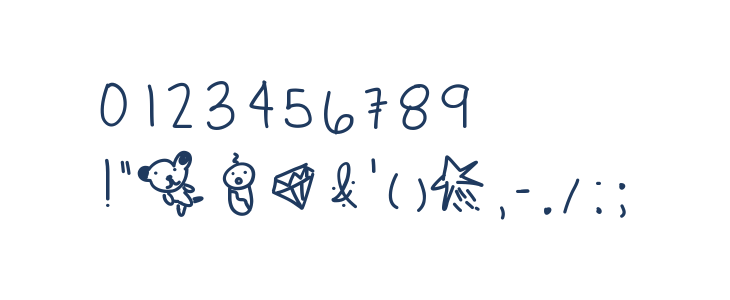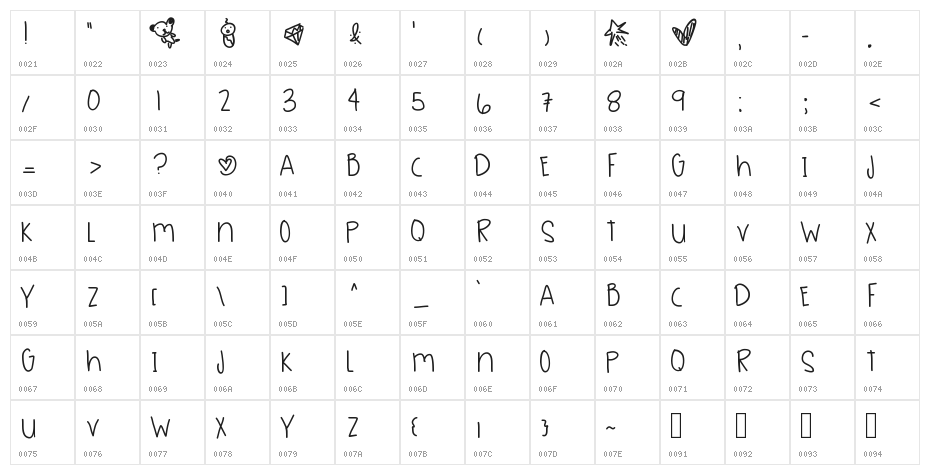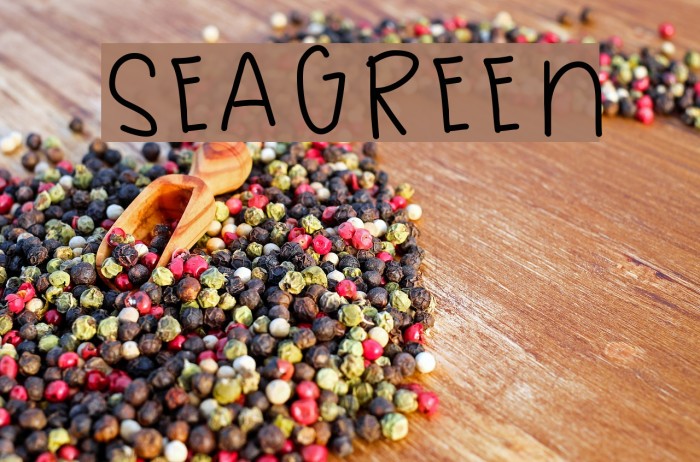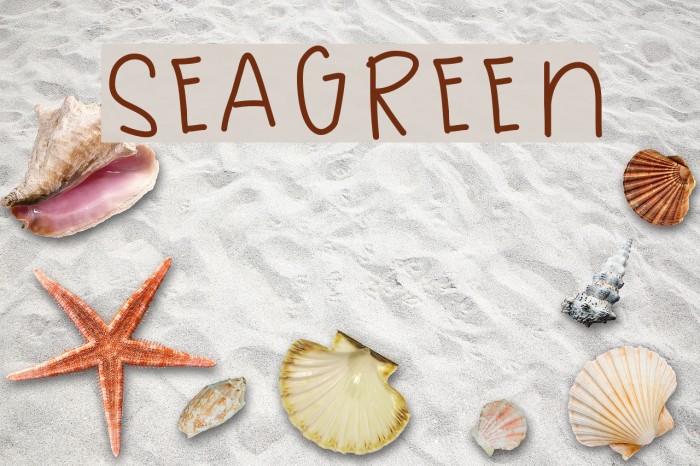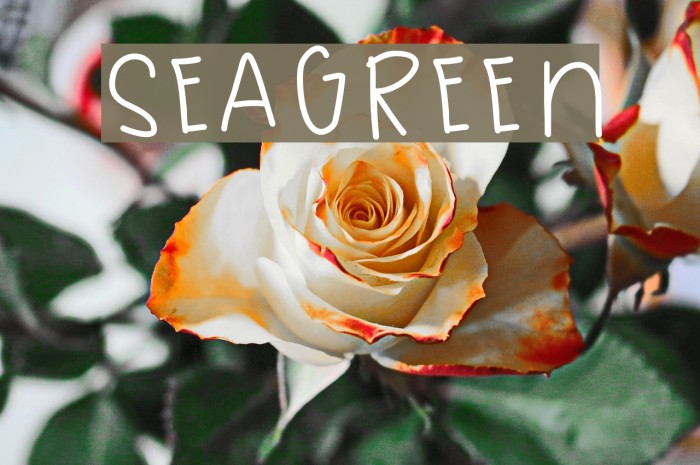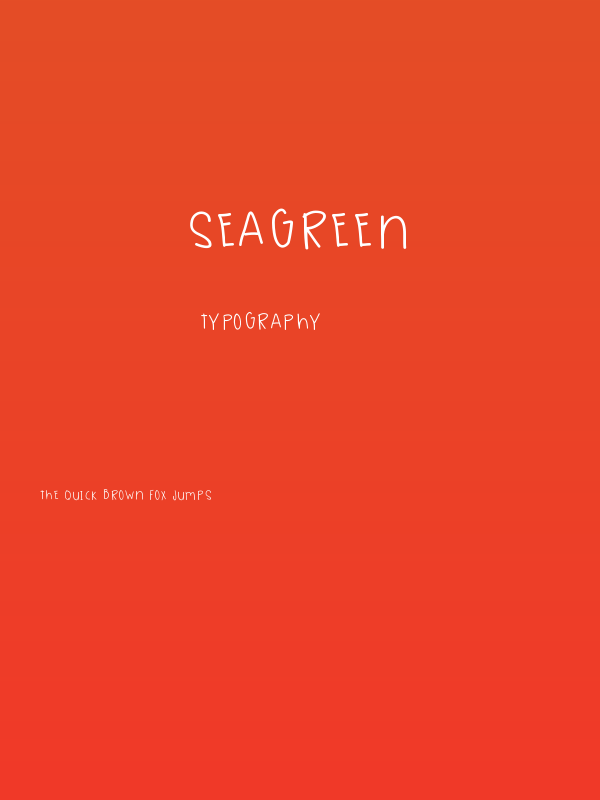
SeaGreen Font
SeaGreen Description
This font features a playful and whimsical handwritten style, characterized by its irregular and slightly uneven strokes that give it a casual, friendly appearance. The letters are rounded with a consistent stroke width, contributing to its approachable and informal look. The uppercase and lowercase letters maintain a uniform height, enhancing readability while retaining a unique charm. Numbers and special characters follow the same playful aesthetic, making this font versatile for creative projects. Its overall design is reminiscent of doodles or sketches, ideal for projects that require a personal touch.